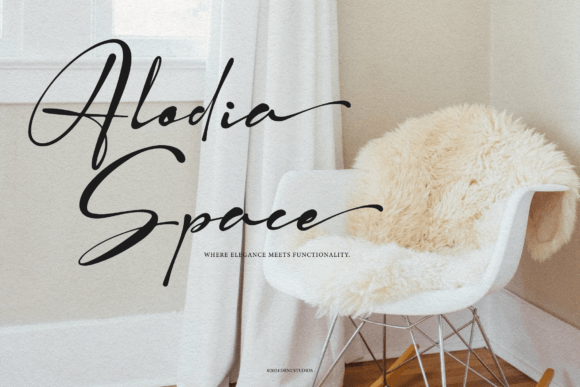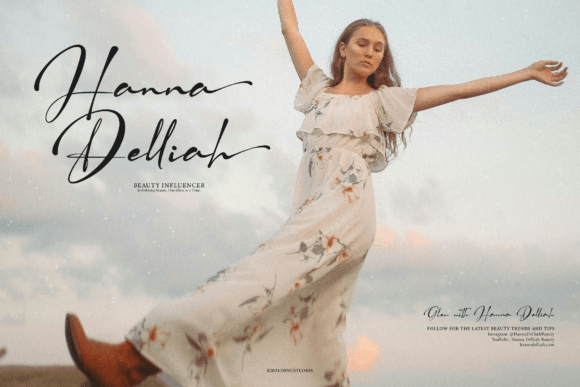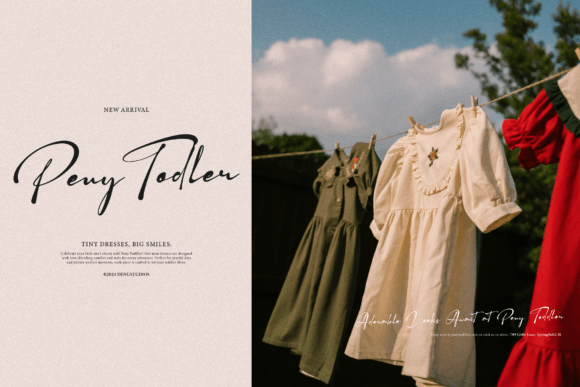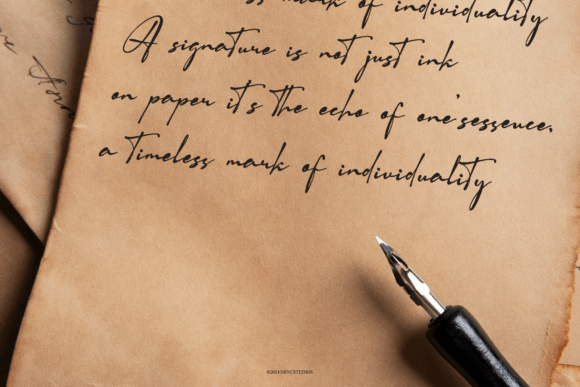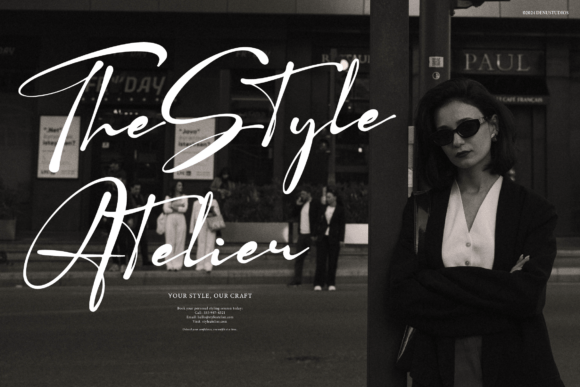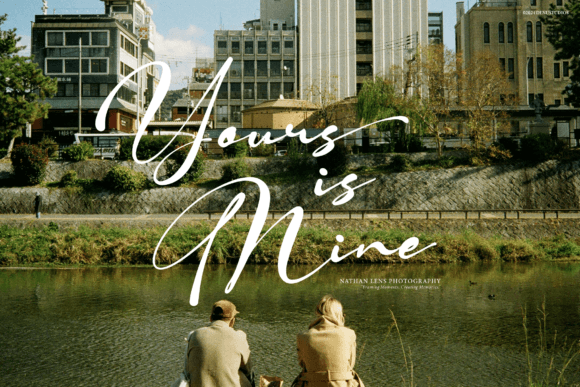
Introduction to Flentha Bellyora Font
Have you ever found yourself in the middle of a creative project, struggling to find the perfect font to bring your vision to life? You’ve searched high and low, scrolling through countless options, but nothing seems quite right. That’s where the Flentha Bellyora Font comes in – a beautiful, casual script font designed to elevate your designs and make your creative process a little bit easier.
With its high-quality, elegant lines and transparent background, the Flentha Bellyora Font is the perfect design resource for any project. Whether you’re working on a logo, branding project, or simply need a font for a one-off design, this font is sure to impress. And the best part? It’s available for free download, making it an invaluable resource for designers of all levels.
Key Features of Flentha Bellyora Font
- High-quality design resource for creative projects, suitable for digital art and graphic design.
- Fluent, elegant script font with a transparent background, ideal for overlaying on images or backgrounds.
- Designed with a unique, hand-written style that adds a personal touch to any creative project.
- Resolution-independent, scalable font suitable for use at various sizes and resolutions, from small to large.
- Perfect for designers and artists seeking a distinctive, high-quality font for their creative projects.
Honest Review: Flentha Bellyora Font
As a designer, I’m always on the lookout for high-quality design resources that can elevate my creative projects. Recently, I stumbled upon the Flentha Bellyora Font, and I’m excited to share my honest review.
What works well: ✨ The Flentha Bellyora Font is a beautiful, elegant script font that’s perfect for creating a sophisticated and professional look. It’s versatile and can be used for a wide range of creative projects, from wedding invitations to branding materials. The font also features a transparent background, making it easy to use with any design element.
- High quality: The font is well-designed and looks great at various font sizes and styles.
Any limitations: ⚠️ While the font is excellent, it’s only available in a limited number of weights and styles, which might be a drawback for some designers who prefer more options.
Overall impression: The Flentha Bellyora Font is a fantastic addition to any designer’s toolkit. Its high quality, elegant design, and free download make it an excellent choice for creative projects. I highly recommend giving it a try and seeing how it can elevate your designs.
How to Use Flentha Bellyora Font
The Flentha Bellyora Font is a versatile and high-quality design resource ideal for various creative projects. With its elegant and modern design, this font is perfect for those seeking a sophisticated and professional look.
Tips for Getting the Most Out of Flentha Bellyora Font
For optimal results, use the Flentha Bellyora Font on a high-resolution design, taking advantage of its high-quality design and transparent background. Experiment with different font sizes, colors, and styles to find the perfect combination for your creative project.
The Flentha Bellyora Font is perfect for a variety of creative projects, including branding, marketing materials, and digital designs. Its elegant and modern design makes it ideal for use in business cards, brochures, and websites.